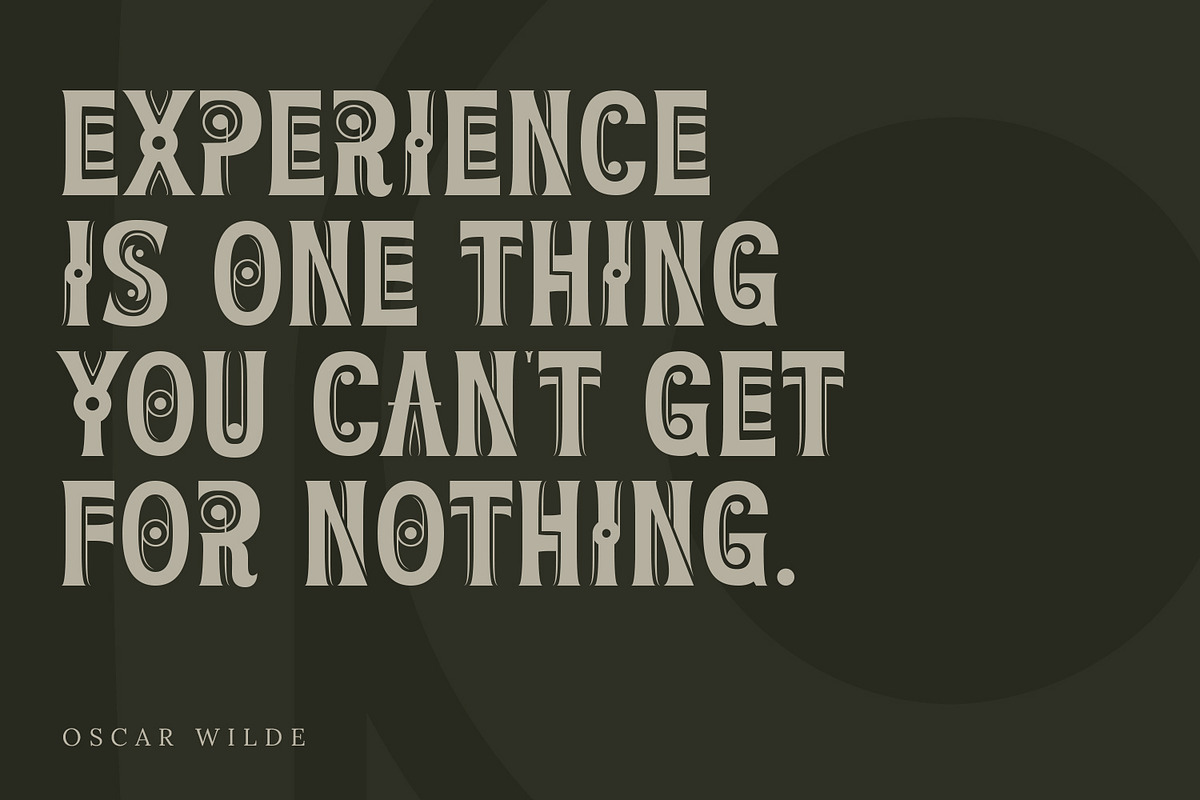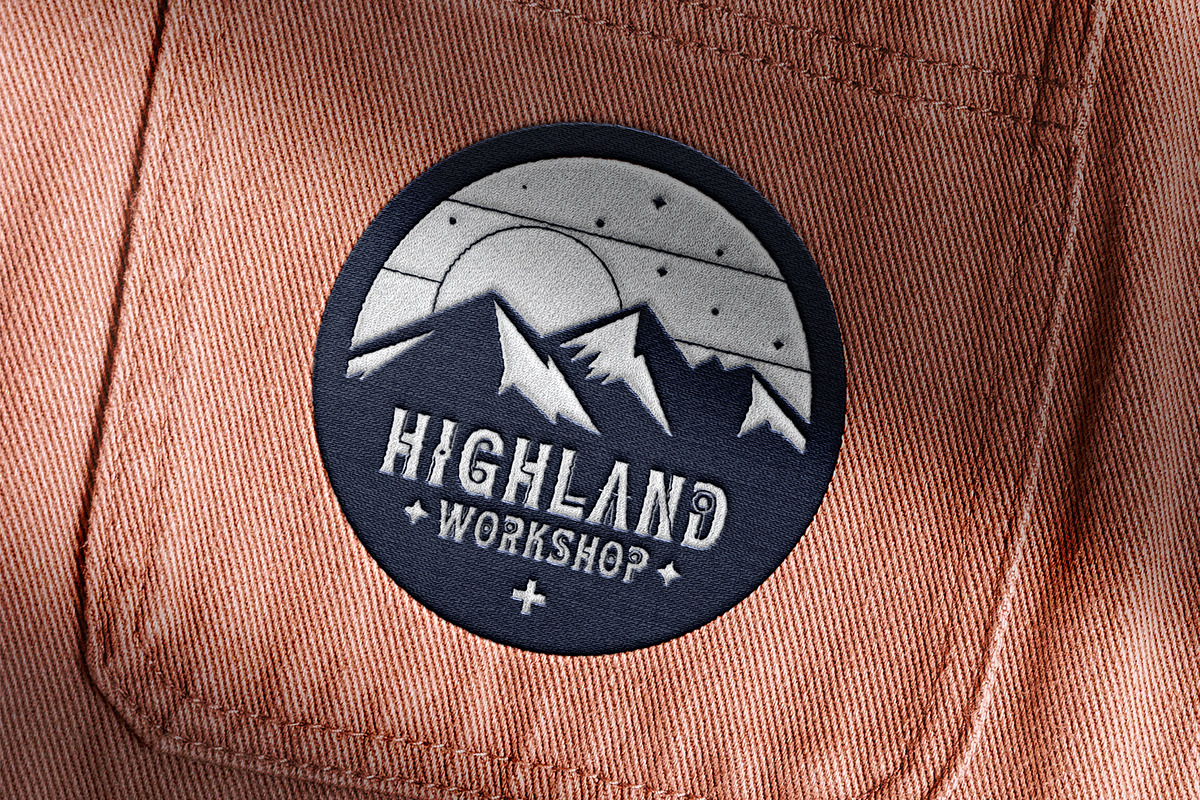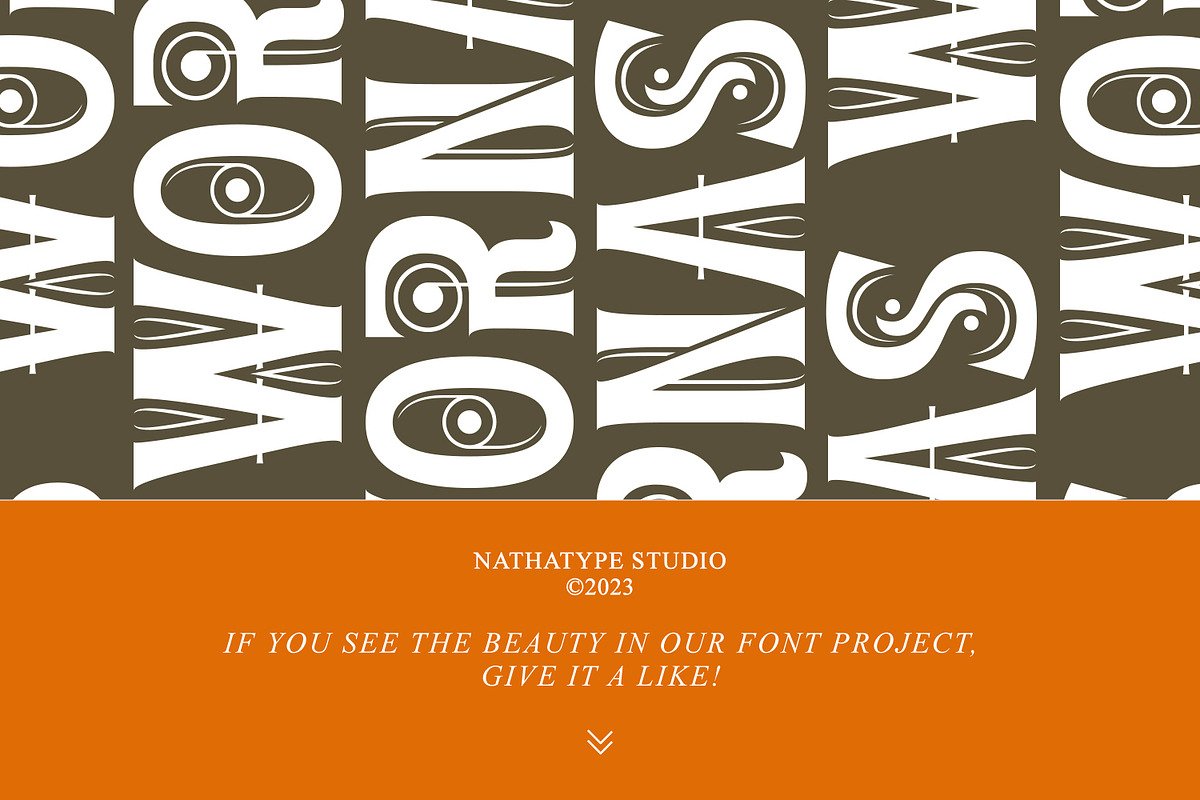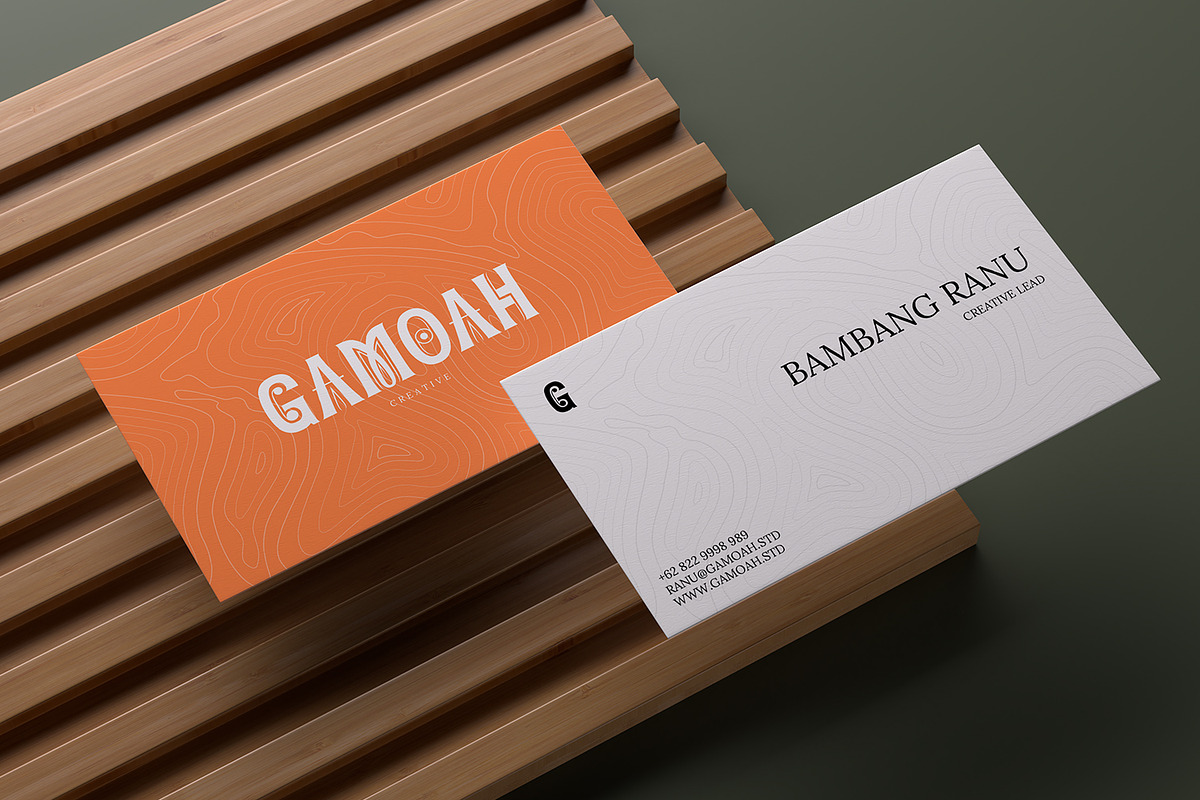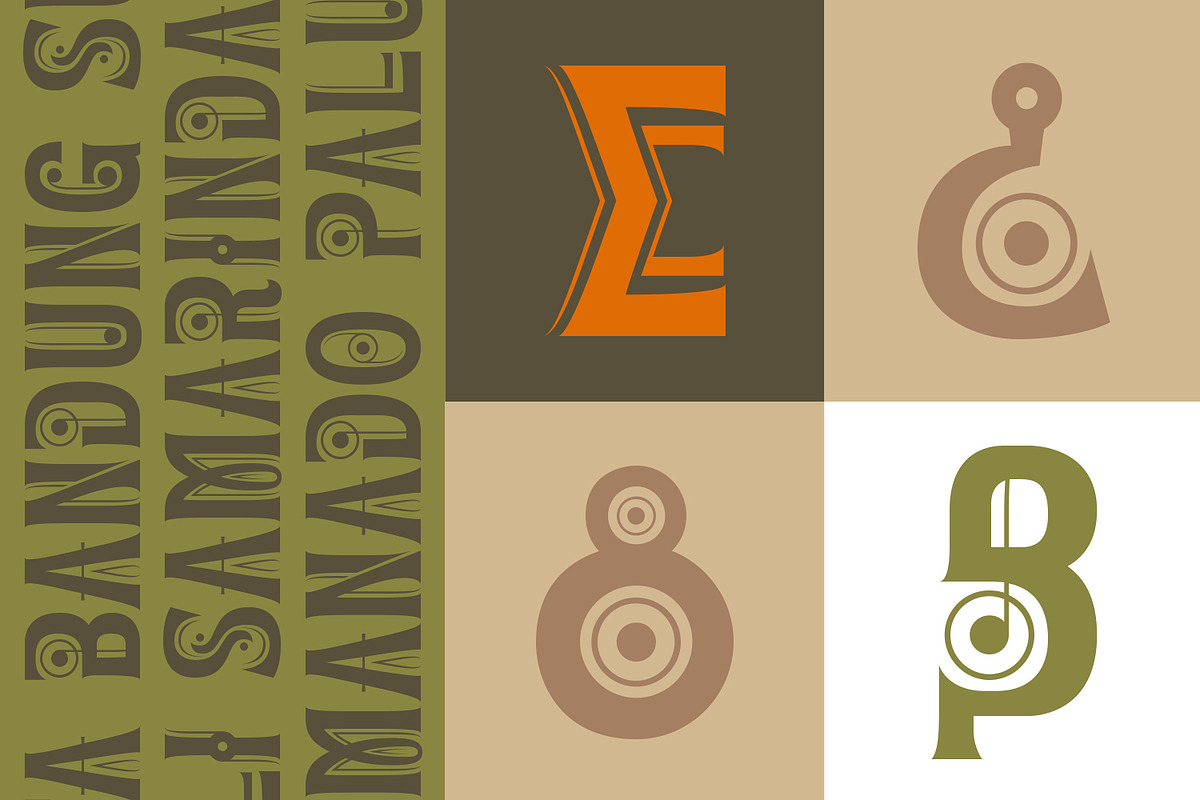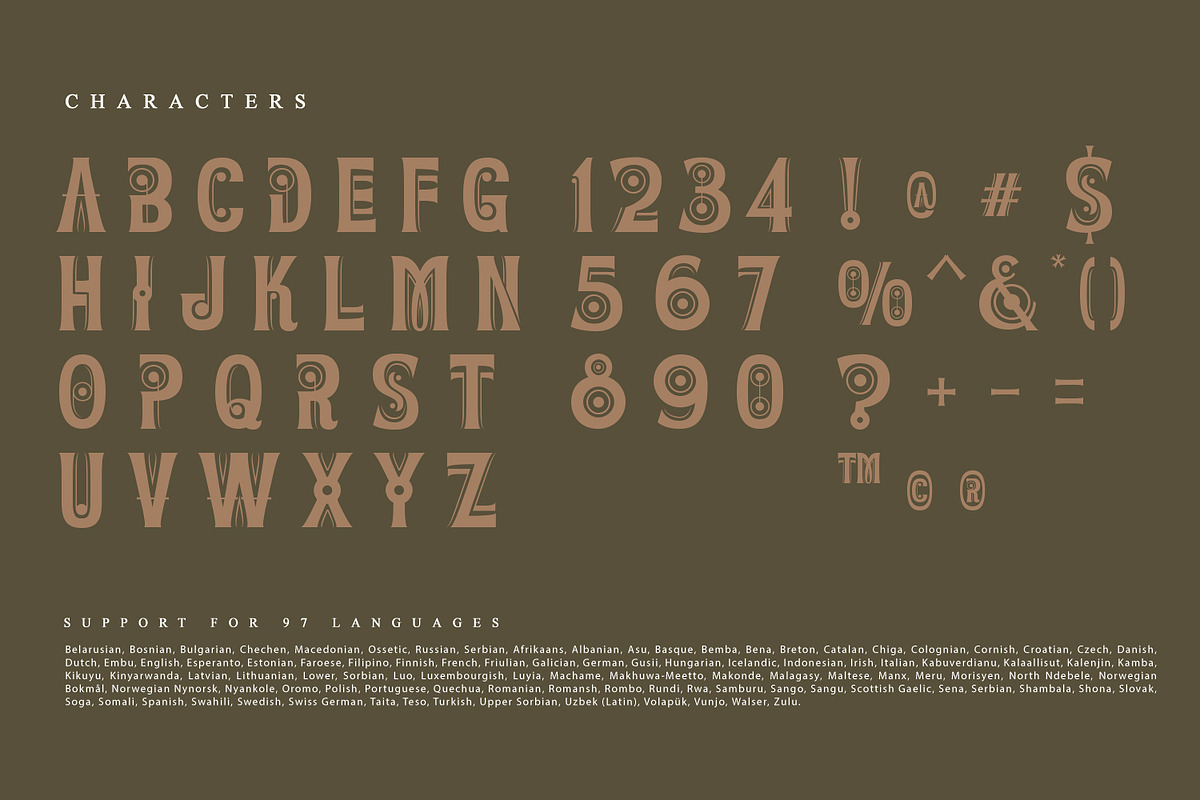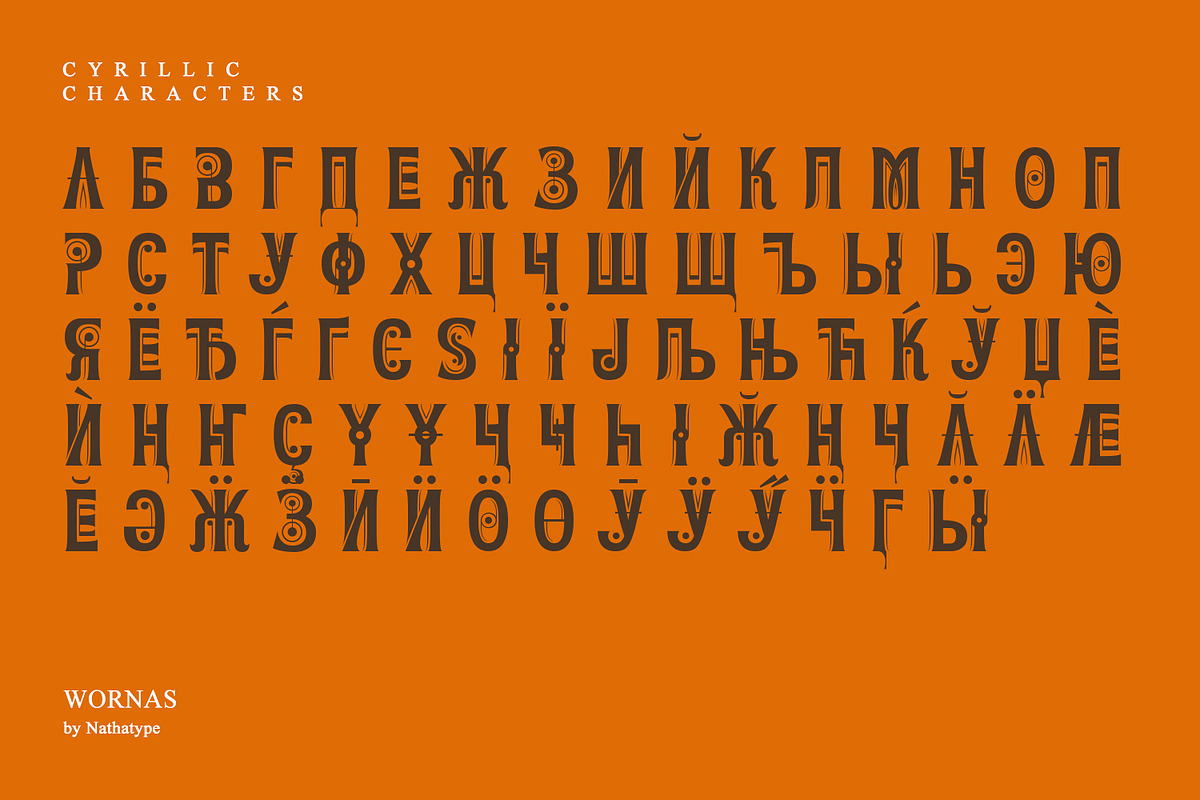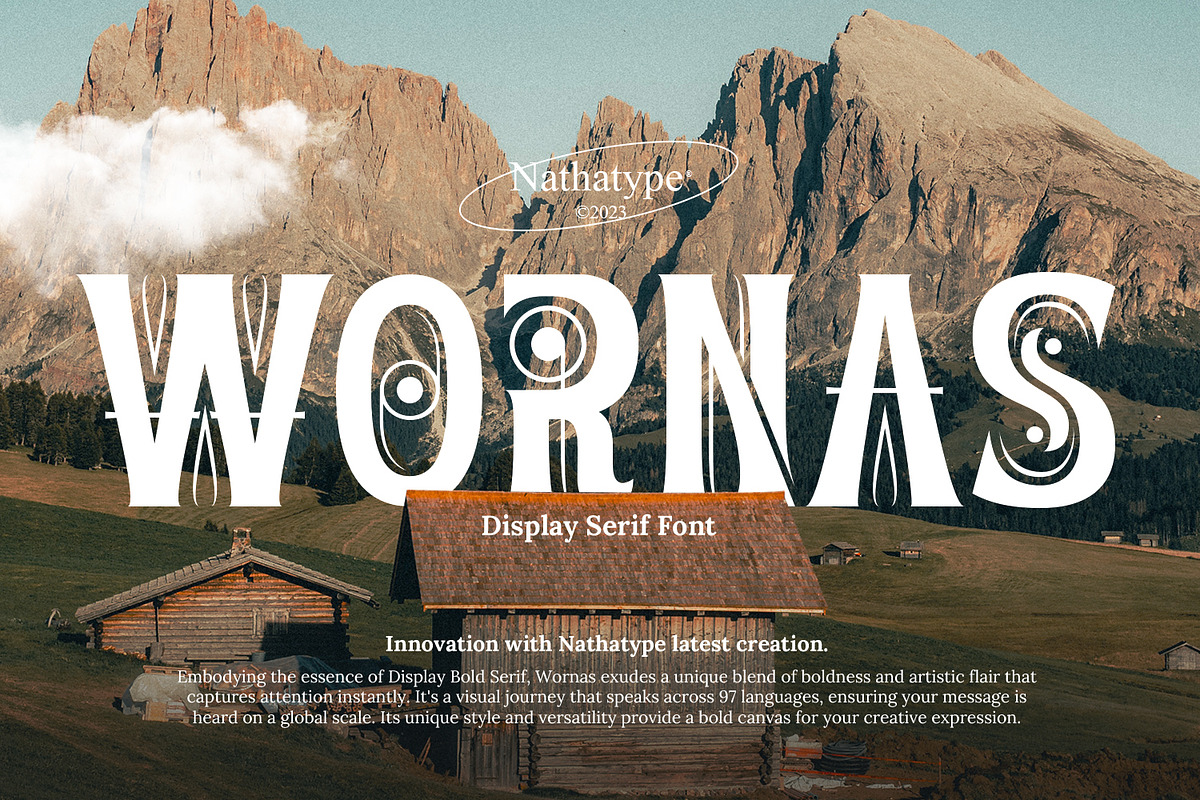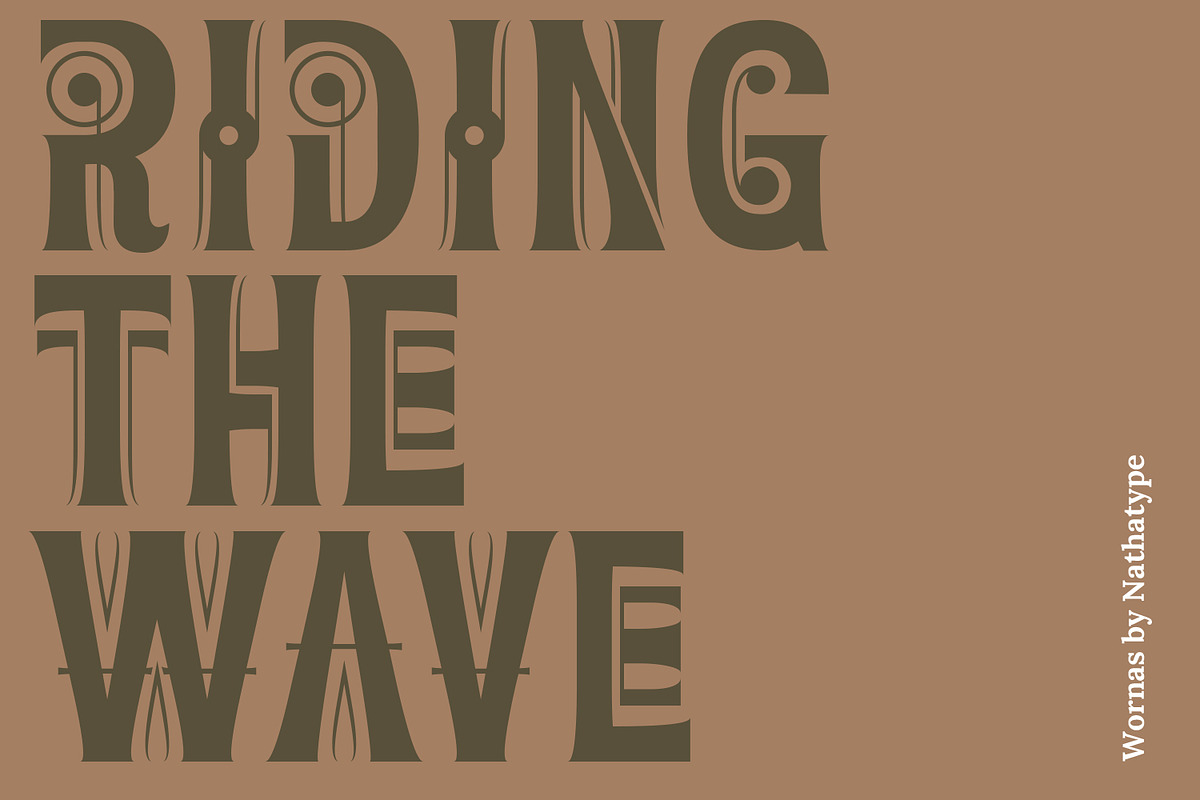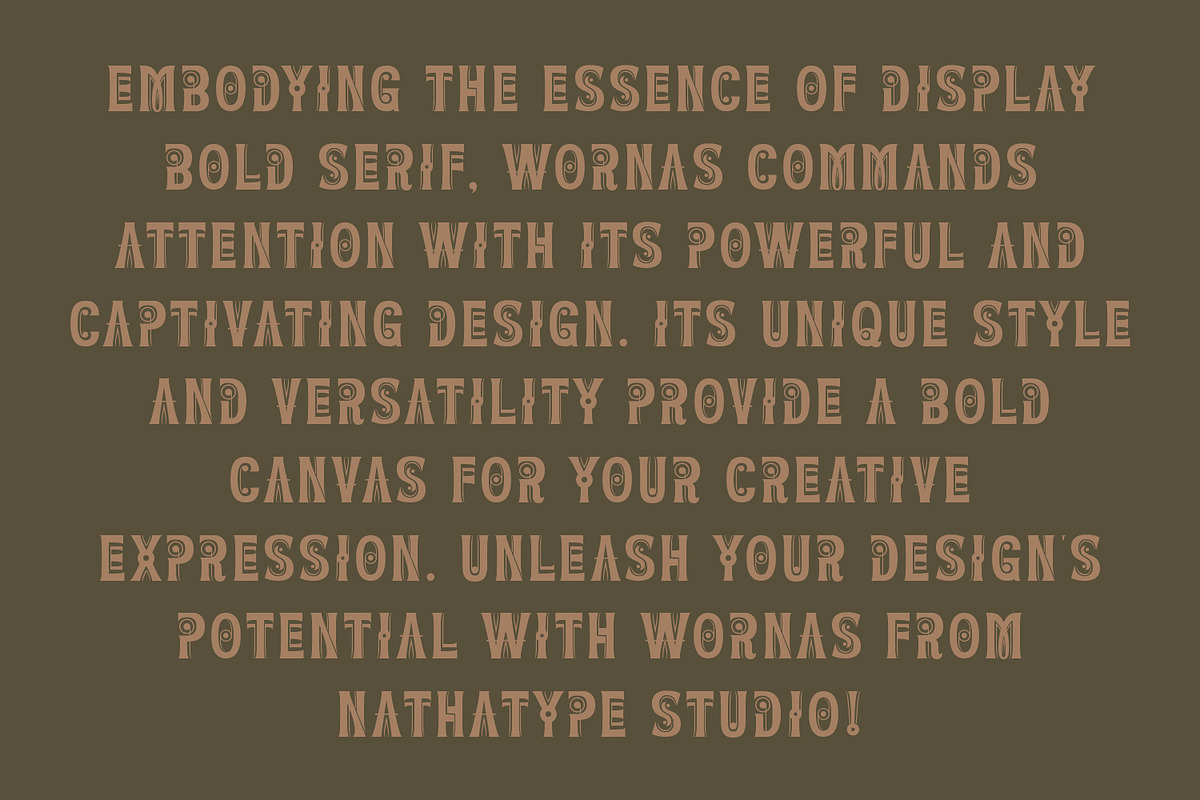
Wornas
Step into the world of visual grandeur with Wornas, a commanding serif display font that marries bold weight with artistic finesse. With its bold weight, Wornas makes a powerful statement. The serifs are striking and meticulously crafted, exuding a classic elegance.
What sets it apart is its artistic flair. The letters are adorned with intricate artistic objects and inline details, transforming each character into a canvas of creativity. These unique embellishments add a layer of depth and visual interest compared to other display fonts.
The generous spacing between characters enhances legibility and creates a sense of openness. On the other side, the inline details in this font are a stroke of design genius. These delicate lines run parallel to the edges of the letters, adding a modern and unique twist to the font. The result is a harmonious blend of classic and contemporary design elements that captivate the eye and leave a lasting impression. Enjoy the features here.
Wornas fits in headlines, logos, posters, flyers, invitations, branding materials, print media, editorial layouts, and many more. Find out more ways to use this font by taking a look at the font preview.